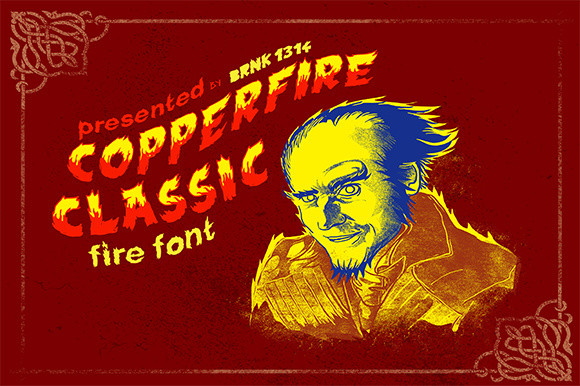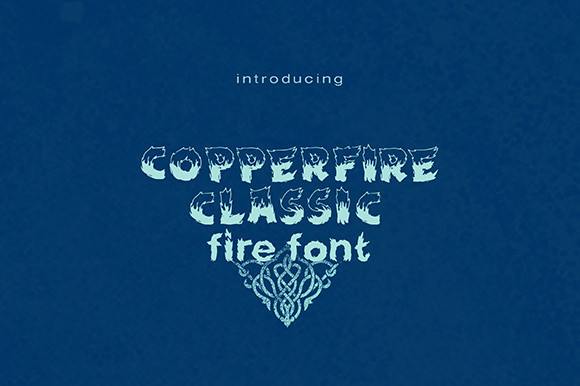
Copperfire Font
Copperfire has a touch of strength but will also give a elegant feel to your design. Copperfire is the perfect companion to create strong and wild feelings for your creative projects. Just play with uppercase and lowercase letters to make perfect words with a casual feel.